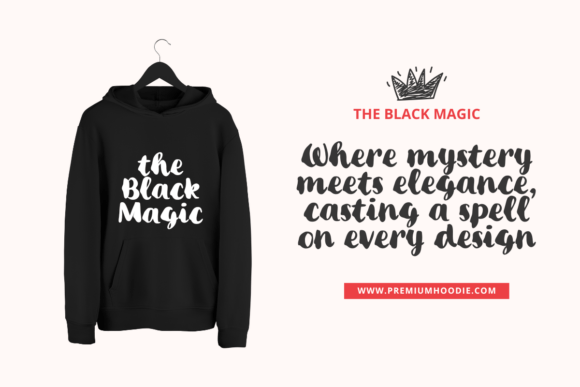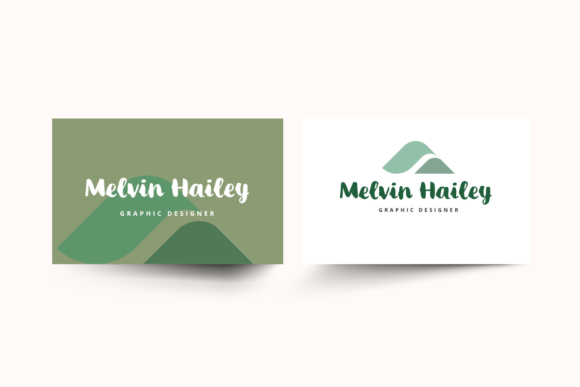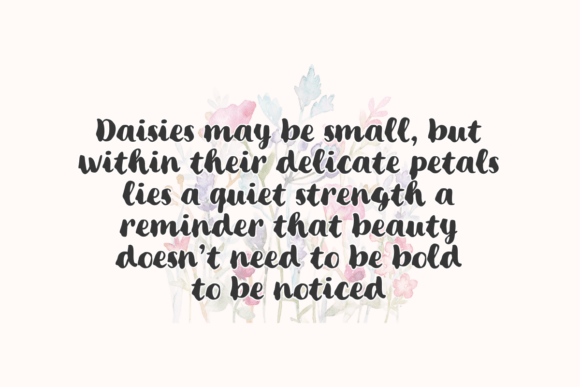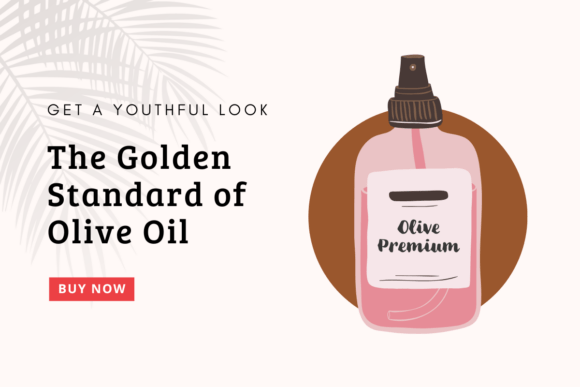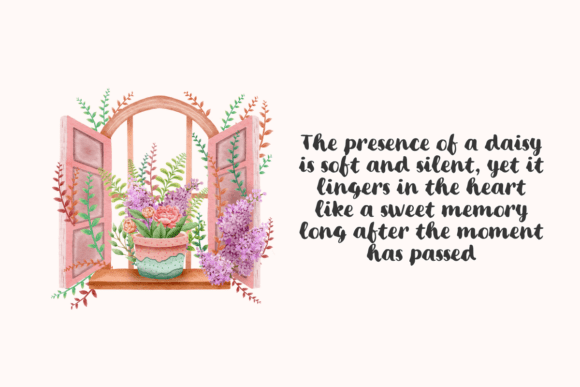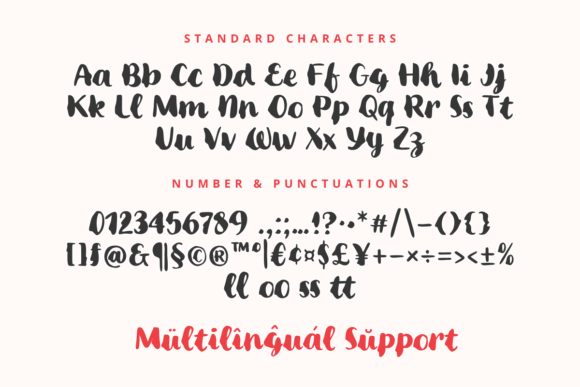
Introducing Daisy Whisper – A Bold Handwritten Typeface
Are you looking for a font that can add a touch of personality and playfulness to your design? Look no further than Daisy Whisper, a bold handwritten typeface that is bursting with charm. This beautiful font is perfect for designers and crafters who want to add a unique and creative element to their work.
The Characteristics of Daisy Whisper
Daisy Whisper is a bold handwritten font that features thick, brush-style strokes that offer a natural, spontaneous feel. Each letter is carefully crafted to evoke the warmth of hand lettering, while maintaining clarity and balance across both upper and lowercase characters. The font’s unique blend of boldness and elegance makes it perfect for a wide range of design applications, from branding and packaging to social media posts and editorial layouts.
Perfect for Branding and Packaging
When it comes to branding and packaging, a font can make all the difference. Daisy Whisper is the perfect choice for designers who want to create a bold and eye-catching look that will stand out on store shelves and online. The font’s bold, brush-style strokes add a touch of personality and whimsy to any design, making it perfect for brands that want to convey a sense of fun and playfulness.
Social Media Posts and Editorial Layouts
Daisy Whisper is also perfect for social media posts and editorial layouts. The font’s clear and balanced design makes it easy to read, even at small sizes, making it perfect for use in blog posts, articles, and social media updates. The font’s bold and playful style also makes it perfect for creating eye-catching headlines and titles that will grab the attention of readers.
What Makes Daisy Whisper Unique
So, what makes Daisy Whisper unique? Here are just a few of the features that set it apart from other fonts:
- Bold and Playful Style: Daisy Whisper has a bold and playful style that is perfect for designers who want to add a touch of personality to their work.
- Brush-Style Strokes: The font’s brush-style strokes add a natural, spontaneous feel to any design.
- Clear and Balanced Design: The font’s clear and balanced design makes it easy to read, even at small sizes.
- Handcrafted with Love: Each letter is carefully handcrafted to evoke the warmth of hand lettering.
How to Use Daisy Whisper in Your Design
Using Daisy Whisper in your design is easy. Here are a few tips to get you started:
- Pair it with Other Fonts: Daisy Whisper pairs perfectly with other fonts, making it easy to create a unique and cohesive look.
- Use it for Headlines and Titles: The font’s bold and playful style makes it perfect for use in headlines and titles.
- Add a Personal Touch: Use Daisy Whisper to add a personal touch to your design, whether you’re creating a brand identity or a social media post.
Daisy Whisper is a bold handwritten typeface that is perfect for designers and crafters who want to add a touch of personality and playfulness to their work. With its thick, brush-style strokes and clear and balanced design, this font is perfect for a wide range of design applications, from branding and packaging to social media posts and editorial layouts. So why not give Daisy Whisper a try and see how it can elevate your design?